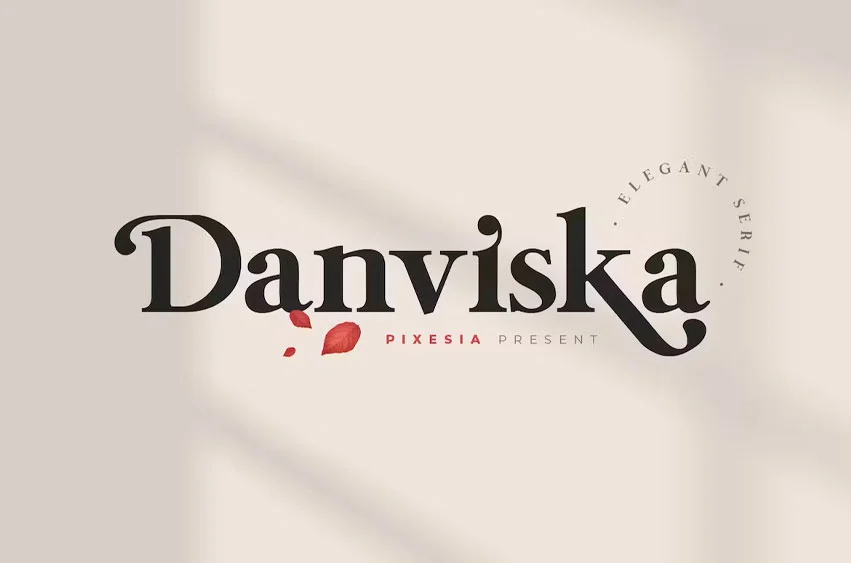
Danviska Font
Danviska Font An Elegant Modern Serif Font. Danviska is a stylish, thick lettered and imposing serif font. This font is PUA encoded which means you can access all of the glyphs and swashes with ease! This font is perfect for branding projects, Logo design, Clothing Branding, packaging, magazine headings, poster, advertising, T-shirts, postcards, wedding invitation and much more.
Fall in love with its incredibly versatile style and use it to create spectacular designs!
FEATURES
• Stylistic Alternates
• Ligatures
• PUA Encoded
• Uppercase and Lowercase letters
• Numbering and Punctuations
• Multilingual Support